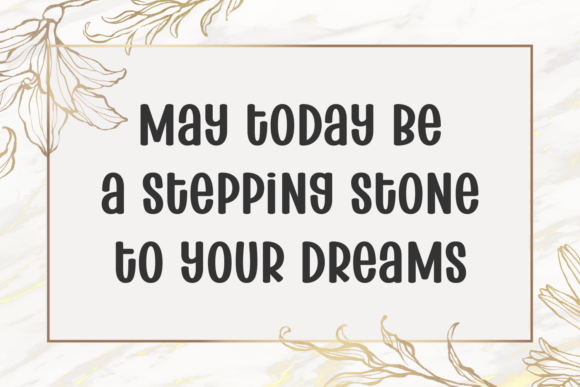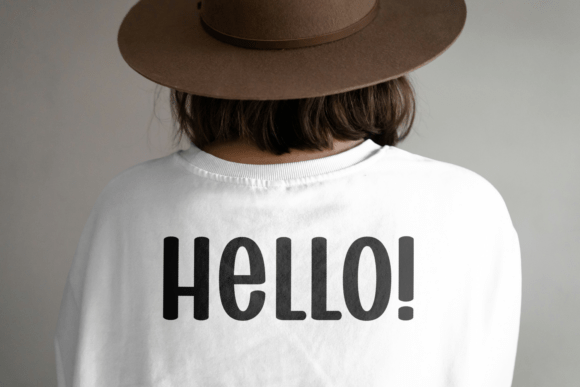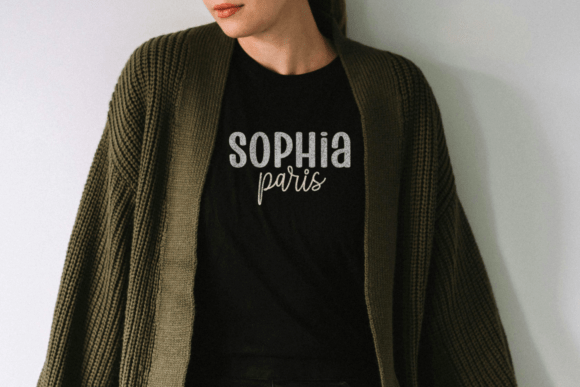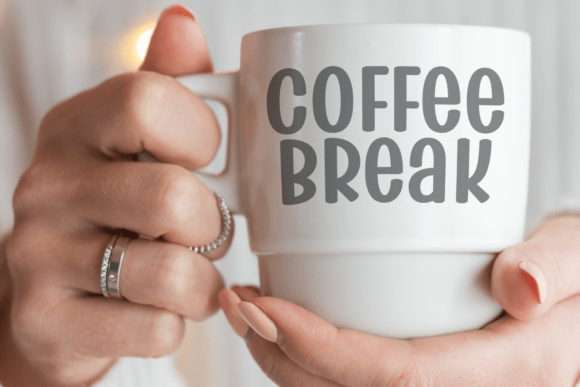
Hello Glamor Font
“Hello Glamor” is an exceptional amalgamation of sartorial creativity and minimalistic beauty. Born from the meeting point of the penned and the modern, this versatile font is a handwriting-script-display basic that whispers elegance while exuding style.
The light-heartedness of “Hello Glamor” makes it perfect for Valentine’s and Mother’s Day inspirations, adding a distinctive touch to your banners, posters, and branding. Its playful aura is embraced by crafters and enthusiasts alike; be it Cricut crafting or SVG font needs, the charm of “Hello Glamor” is simply unbeatable. Its modern, casual silhouette makes it an ideal choice for apparel, logo, and wedding design.
Cute yet powerful, this popular font mirrors retro sophistication with an unmatched cleanliness. As versatile as it is trendy, “Hello Glamor” supports multilingual and Eastern European characters, carving out its niche as an accessible, inclusive font. Explore the infinite possibilities with “Hello Glamor”, the perfect sublimation font that radiates a timeless chic vibe and brings your designs’ story to life.